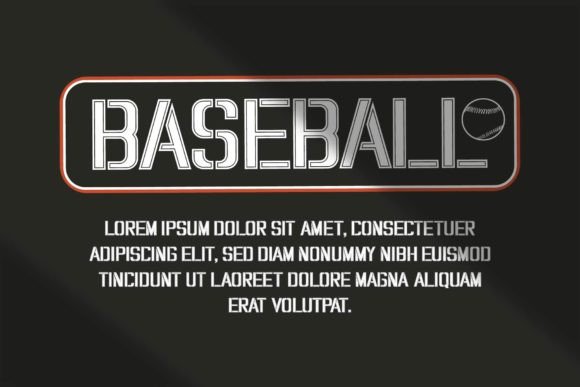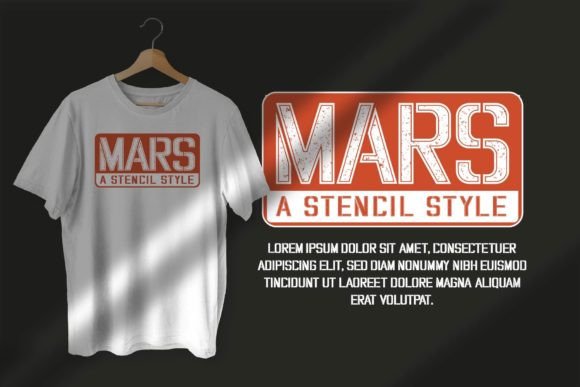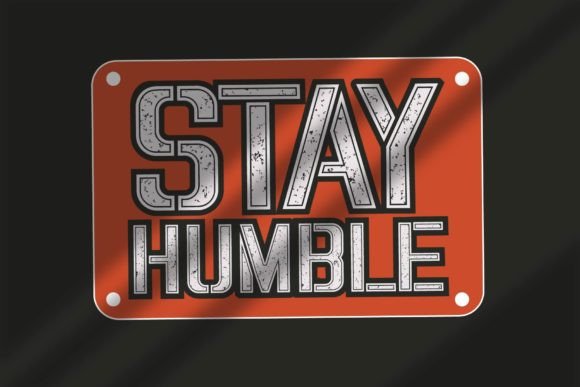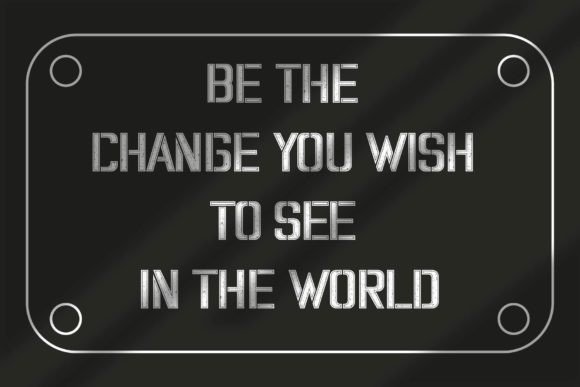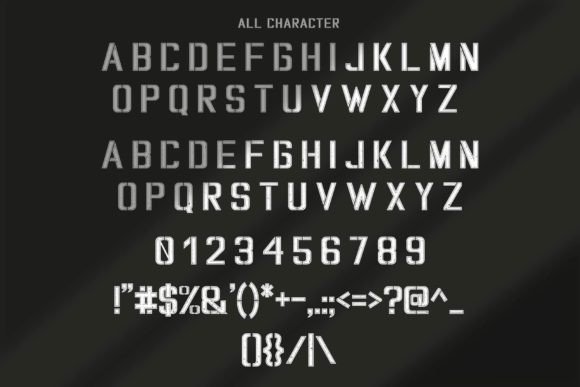
Unleash Your Inner Rebel with Black Grunge Font
Have you ever stared at a blank canvas, feeling the urge to create something bold and fearless? That’s the moment when inspiration strikes, and the world of design comes alive. For designers like you, there’s a font that embodies the spirit of rebellion and individuality – the Black Grunge Font.
This captivating collection of stencil-style fonts is designed to make a statement, with both a regular and a grunge version that lets you unleash your creativity. Whether you’re crafting logos, branding materials, or t-shirt designs, the Black Grunge Font is the perfect tool to add a touch of authority and edge to your projects.
With its versatility and innovative appeal, the Black Grunge Font is a valuable addition to any designer’s toolkit. It’s the perfect way to amplify your marketing efforts, elevate your blog or magazine, and set your brand apart from the crowd.
Black Grunge Font Key Features
- Font Size: The font is designed to be highly legible at various sizes, ranging from 8pt to 48pt, making it suitable for use in headings, titles, and body text.
- Resolution: The font is optimized for use at high resolutions (up to 300 DPI), ensuring crisp and clear rendering on various devices and printing materials.
- Unique Characteristics: The Black Grunge Font features a distressed, grungy aesthetic with rough textures, subtle wear, and tear effects, giving it a unique, edgy look.
- Language Support: The font includes comprehensive language support, covering Latin-based languages, Cyrillic, and Greek alphabets, making it suitable for use in multilingual designs.
- Font Styles: The Black Grunge Font family includes multiple font styles, including regular, bold, italic, and bold-italic, allowing designers to create visually appealing and consistent typography.
Black Grunge Font Review
First of all, I want to say that I’m a fan of bold and edgy fonts, and the Black Grunge Font does deliver on that front. ✨ The distressed texture and rough edges give it a cool, rock-inspired vibe that’s perfect for music-related projects or anything that needs a bit of an edge.
- ✨ Unique texture that adds character to any design
- ✨ Great for creating a sense of tension or urgency
- ✨ Perfect for music, gaming, or other high-energy projects
- ⚠️ May not be suitable for projects that require a more subtle or elegant look
- ⚠️ Can be difficult to read in certain font sizes or line lengths
- ⚠️ May not be compatible with all operating systems or devices
Overall, I think the Black Grunge Font is a great choice for designers who want to add a bit of grit and attitude to their projects. Just be aware of its limitations and use it wisely.
To get the most out of the Black Grunge Font, try the following:
- Combine the font with other design elements, such as textures and images, to create a visually appealing design.
- Use the font to create a bold and edgy look, perfect for music, fashion, or street art designs.
The Black Grunge Font is commonly used in:
- Choose a motivational quote and set it in Black Grunge Font.
- Add a distressed texture background to give the quote a worn, vintage look.
- Combine the quote with bold, bright colors to create a visually striking contrast.
- Set the wedding details in Black Grunge Font, such as the couple’s names and date.
- Add a touch of elegance with a subtle floral pattern or a delicate ribbon.
- Balance the edginess of the Black Grunge Font with a classic, traditional wedding invitation layout.
- Set the album title and artist name in Black Grunge Font.
- Add a gritty, industrial background with
Q: What is the Black Grunge Font and what is its style?
The Black Grunge Font is a distressed, grunge-style font that resembles worn-out or weathered text. It features rough edges, irregularities, and a gritty aesthetic, making it suitable for designs that require a rugged, edgy look.
Black Grunge Wedding Invitations
A unique and edgy wedding invitation design that incorporates Black Grunge Font with a touch of elegance.
Tip: Use Black Grunge Font for the main text and a elegant, cursive font for the couple’s names to create a striking contrast.
Grunge-Inspired Music Album Art
A grunge-inspired music album art design that combines Black Grunge Font with a gritty, industrial aesthetic.